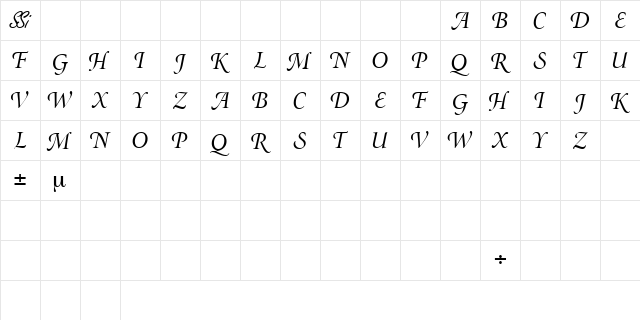
Complete AtlantixSwashDisplayCapsSSK Italic glyph index. Displaying only characters natively supported by AtlantixSwashDisplayCapsSSK Italic font.
AtlantixSwashDisplayCapsSSK flows with the natural rhythm of handwritten lettering, making it ideal for designs that call for warmth and personal expression.
Font Pairing: Combine AtlantixSwashDisplayCapsSSK with a simple geometric sans for maximum contrast - the tension between flowing curves and clean structure is a classic typographic pairing.
Pro Tip: Use AtlantixSwashDisplayCapsSSK for short runs of text - names, titles, or taglines. Extended body copy in script faces tires the eye quickly.